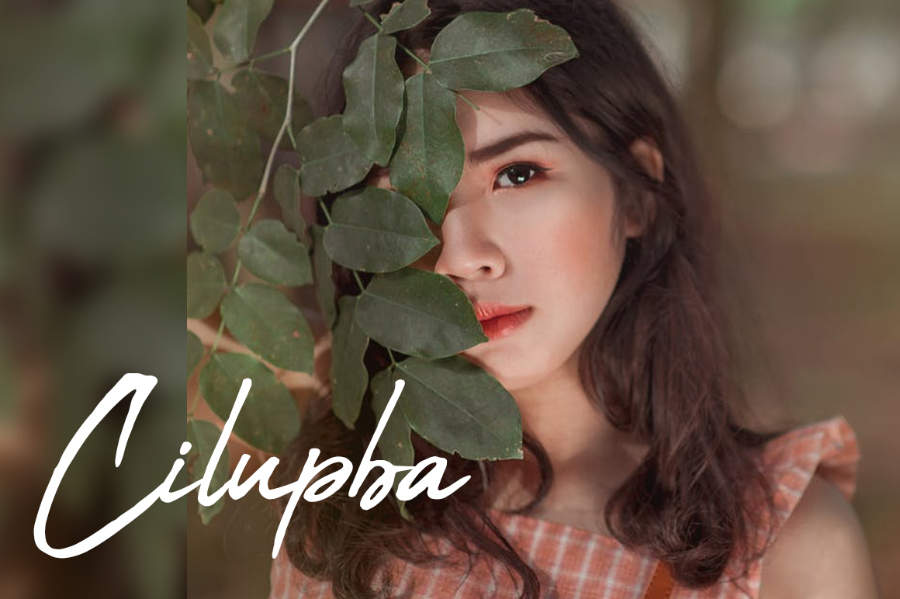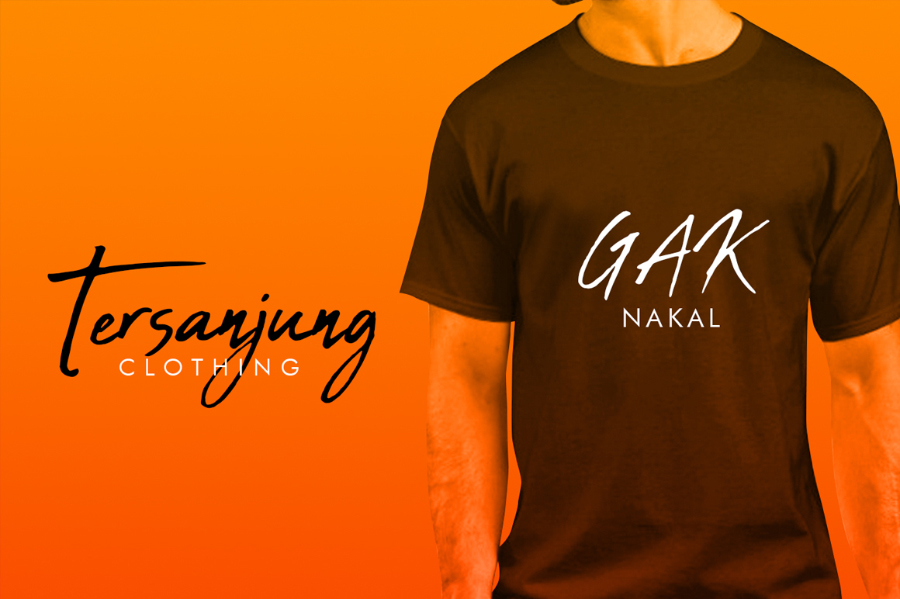
Abuget Script Free Demo
Abuget Script Free Demo is the latest work from Khurasan. This pretty typeface is coming today from an actual handwriting. It is thought and curvy makes it great for any kind of display purpose designs. Hence, it will look great as a headline, logo, packaging, poster, social media and so much more!